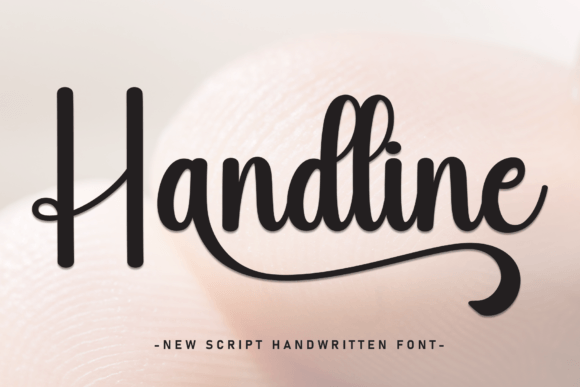
Introduce the Handline Font Collection with an Inspiring Tone:
In a world of digital communication, where your resume stands out from the crowd matters, meet Handline Script: a font family that speaks to your individuality and aspirations. Handline is the perfect pick for your resume as it goes beyond mere text, infusing your words with a touch of elegance and charm.
Handline Font's Unique Personality:
Handline is not just a font; it's an expression of your passion, creativity, and style. Its delightfully sweet and friendly handwritten style captivates the eye, making your resume truly memorable. Its cute and fun vibe brings a sense of approachability and warmth to your professional profile, leaving a lasting impression on potential employers.
Enhance Your Professional Image:
With Handline, you're not just applying for a job; you're making a statement. Its stylish curves and loops add a touch of sophistication to your resume, conveying a sense of professionalism and attention to detail. The font's unique character enhances your personal brand, making you stand out in a competitive job market.
Perfect for Various Designs:
Handline's versatility goes beyond resumes. Its charming nature makes it an ideal choice for creating stunning wedding invitations, greeting cards, and other designs where a personal touch is desired. Let Handline's playful spirit add a touch of joy to your creative projects, capturing the hearts of your audience.
Handline isn't merely a font; it's a testament to your creativity, a reflection of your unique style, and a tool to unlock your professional aspirations. With its sweet and friendly handwritten style, Handline brings a touch of elegance and charm to your resume, making it stand out from the crowd. From resumes to creative designs, Handline empowers you to express your individuality and leave a lasting impression.